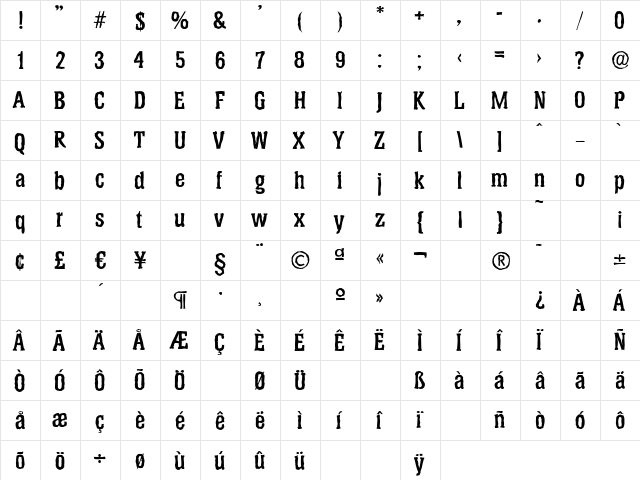
HeliumAntique Bold
Design Context for HeliumAntique Typeface
HeliumAntique wears its vintage influences proudly, with letterforms that recall mid-century signage, classic packaging, and nostalgia-driven design. The heavy weight commands attention and anchors typographic hierarchies.
Perfect for vintage-inspired branding, retro packaging, nostalgia campaigns, and period-accurate editorial design.
Font Pairing: Combine HeliumAntique with a simple slab or neutral sans — period-accurate companions reinforce the vintage feel without competing for attention.
Pro Tip: Use HeliumAntique for headlines and pull quotes rather than body copy — its personality is best appreciated in short, focused bursts.